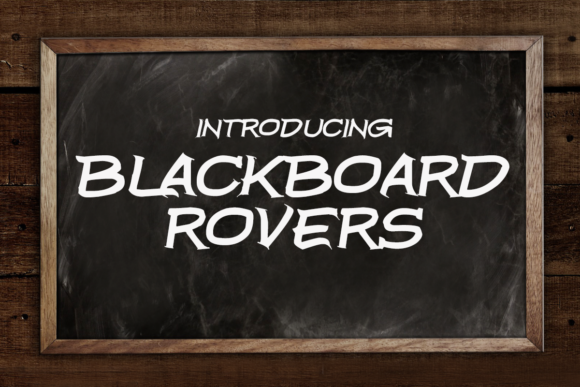
The Blackboard Rovers Font: A Simple yet Striking Typeface
I’ll never forget the moment I stumbled upon the perfect font for a project. I was working on a branding campaign for a trendy coffee shop, and I needed a typeface that was both playful and professional. After hours of scrolling through font libraries, I finally found Blackboard Rovers by Chequered Ink. It was love at first sight! ✨
As a designer, I’ve learned that the right font can make or break a project. And with Blackboard Rovers, I knew I had found a winner. But what makes this font so special? Let’s dive in and explore its features, quirks, and uses.
- ✨ Simple yet striking design that’s perfect for headlines and titles
- ✅ Great for both digital and print projects
- ✅ Works well with a variety of design styles, from modern to vintage
While Blackboard Rovers is an excellent font, it’s not perfect. Here are a few things to keep in mind:
- ⚠️ Limited character set: Blackboard Rovers is a sans-serif font with a limited character set, which may not be suitable for projects that require a wide range of characters.
- 🤔 Not ideal for body text: While Blackboard Rovers is highly legible, it’s not the best choice for body text due to its bold and playful nature.
According to Chequered Ink, Blackboard Rovers was inspired by the classic blackboard fonts of the past. The designer wanted to create a font that was both nostalgic and modern, with a playful twist. The result is a font that’s perfect for designers, crafters, and creative hobbyists who want to add a touch of personality to their projects.
Q: Is Blackboard Rovers suitable for body text?
A: While Blackboard Rovers is highly legible, it’s not the best choice for body text due to its bold and playful nature.